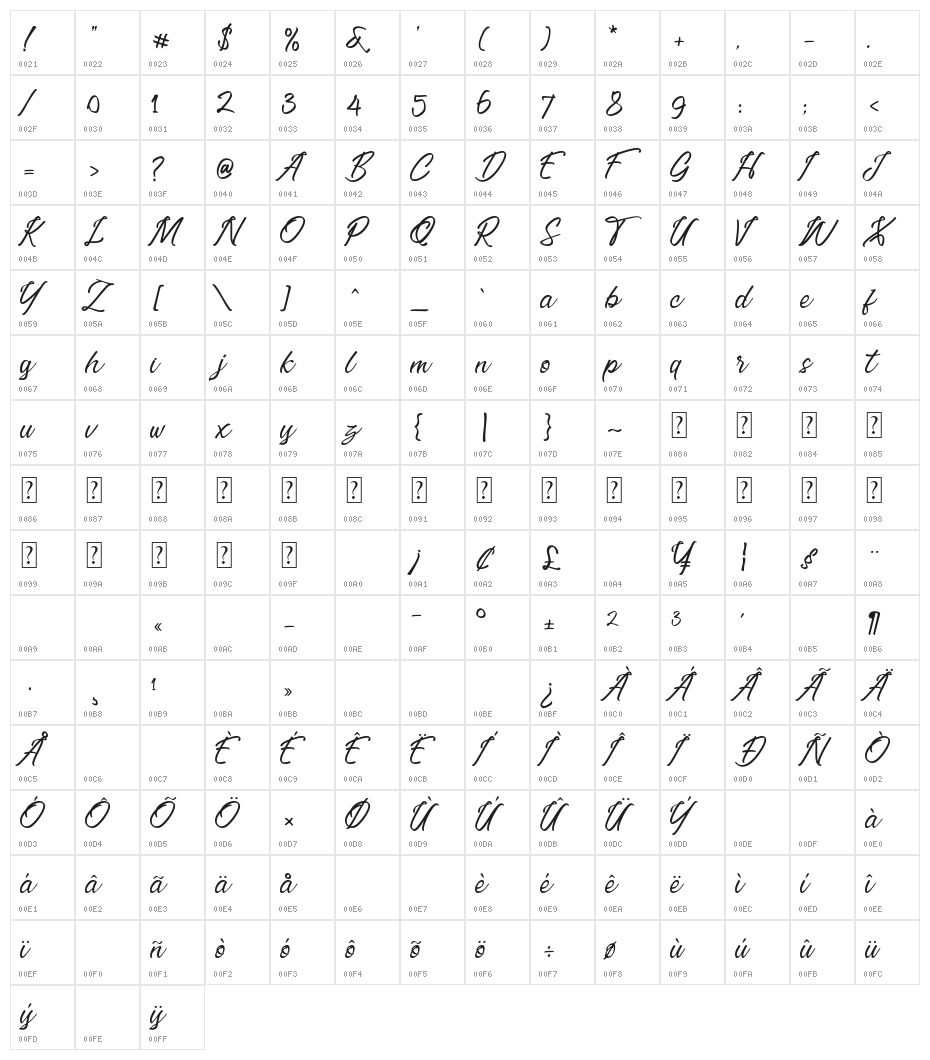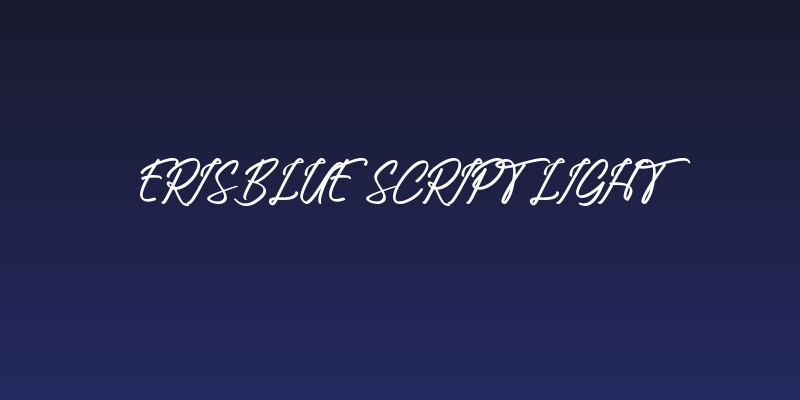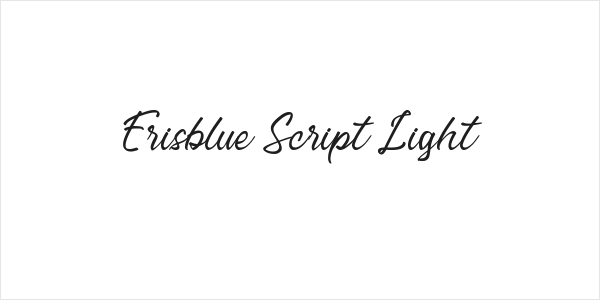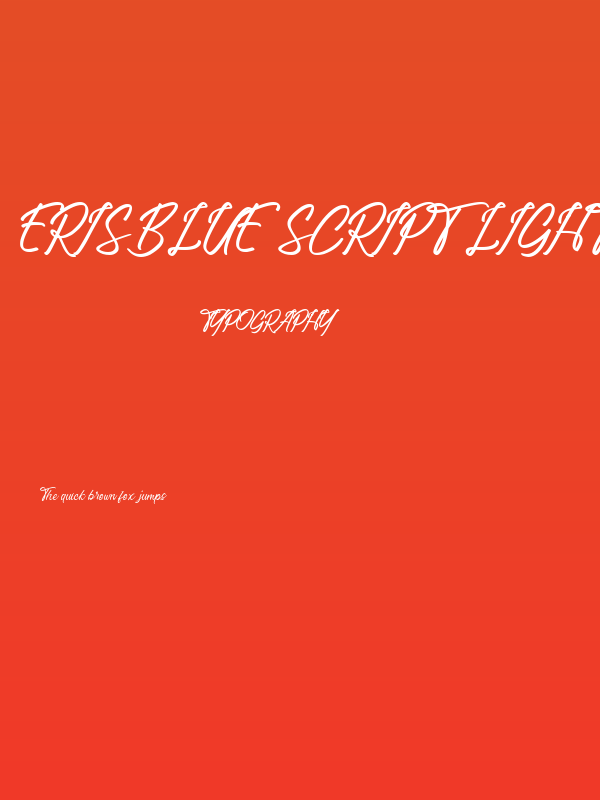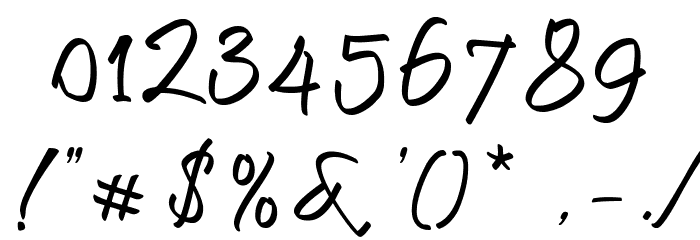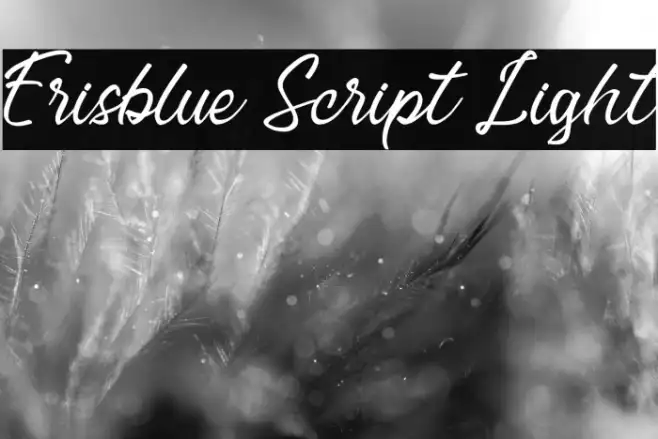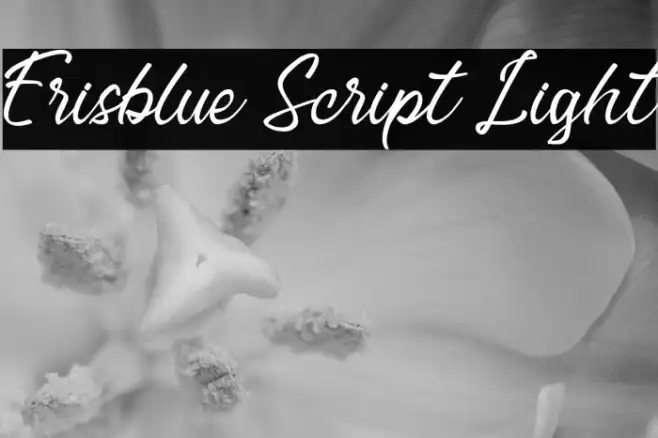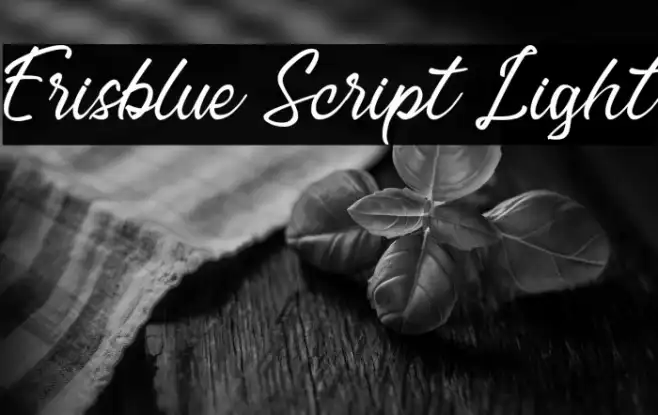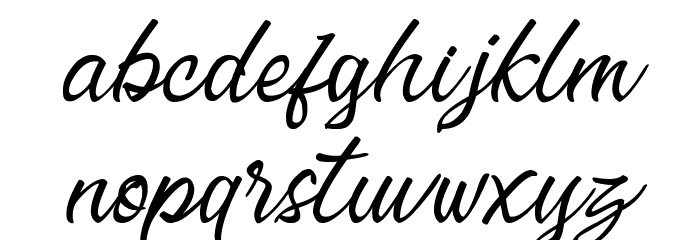
Erisblue Script Light Font
Erisblue Script Light Description
This script font exudes elegance and fluidity, characterized by its smooth, flowing strokes and cursive style. The uppercase letters are bold and confident, with sweeping curves that give a sense of motion and grace. The lowercase letters maintain a consistent style, offering a harmonious blend of loops and tails that enhance readability while preserving the font's artistic flair. Numbers and special characters are crafted with the same attention to detail, ensuring a cohesive look across all elements. The font's light weight adds a touch of delicacy, making it suitable for projects that require a personal or sophisticated touch.